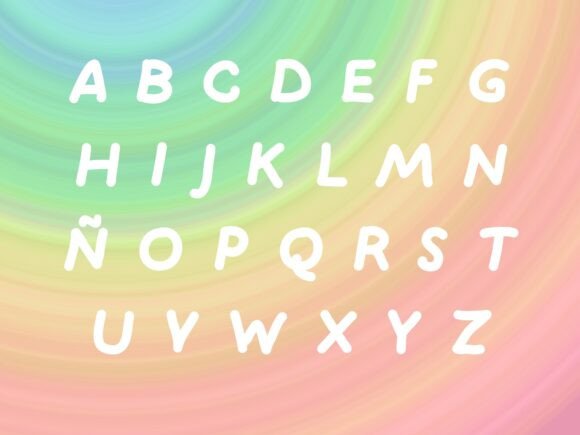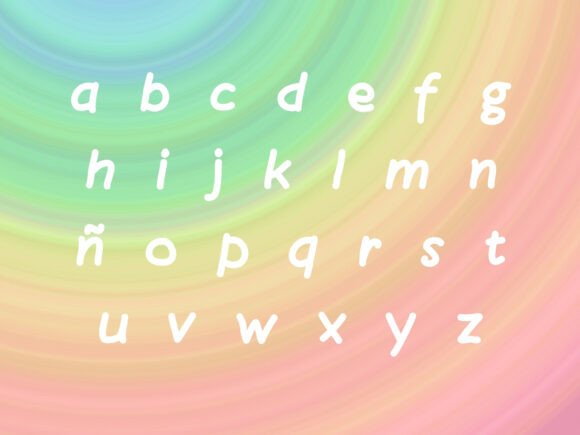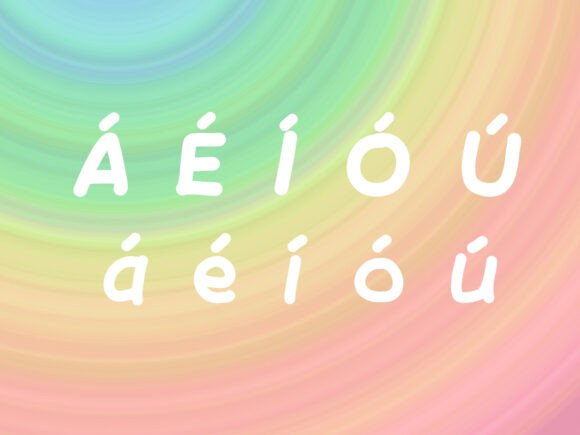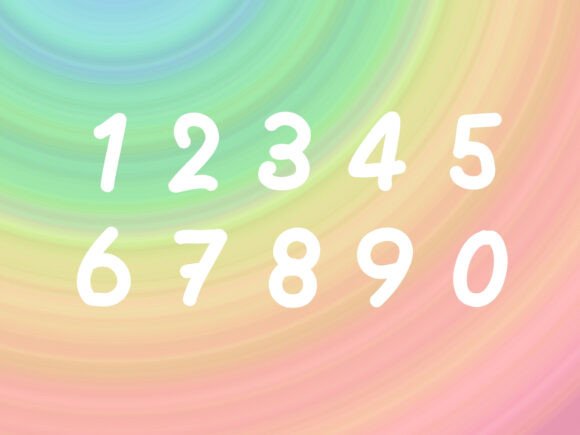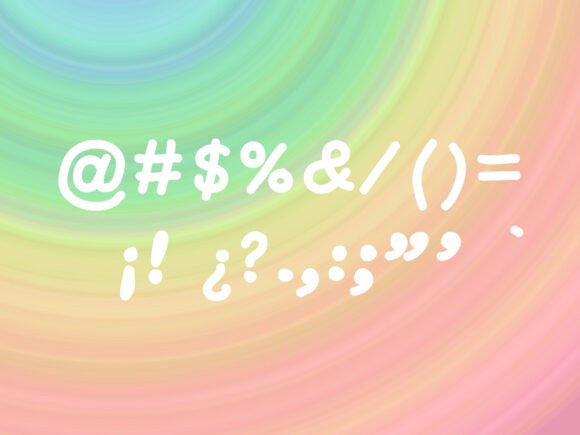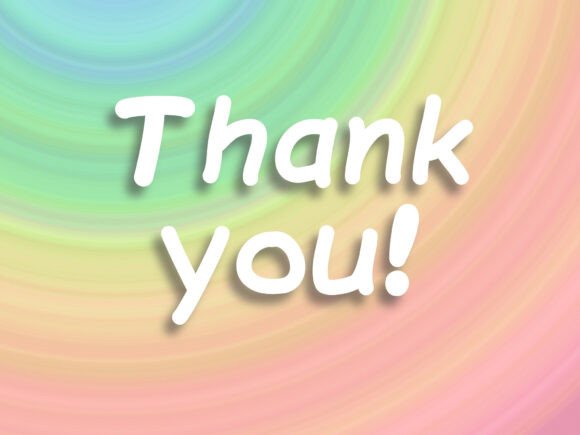
Introducing Erika Font: The Perfect Blend of Boldness and Clarity
Are you looking for a font that can help you make a statement with your creative projects? Look no further than Erika, a delightfully bold and wonderfully clear handwritten font that’s designed to be noticed. With its unique blend of friendly, approachable feel and strong, confident letterforms, Erika is the perfect choice for designers and crafters who want to add a touch of personality to their work.
The Characteristics of Erika Font
Erika font combines the best of both worlds – a friendly, approachable feel and strong, confident letterforms. This makes it incredibly versatile for a wide range of creative projects, from branding and advertising to packaging and digital media. The clean, easy-to-read style of Erika ensures that your message always shines through, making it perfect for use in headlines, titles, and body text.
What Makes Erika Font Stand Out?
So, what sets Erika apart from other fonts? Here are just a few of its standout features:
- Bold and Confident: Erika’s bold letterforms make it perfect for use in headlines and titles, where you want to grab the reader’s attention.
- Clean and Easy to Read: Despite its boldness, Erika is incredibly clear and easy to read, making it perfect for use in body text and other applications where readability is key.
- Friendly and Approachable: Erika’s friendly, approachable feel makes it perfect for use in projects where you want to connect with your audience on a personal level.
- Versatile: Erika is incredibly versatile, making it perfect for use in a wide range of creative projects, from digital media to print materials.
How to Use Erika Font in Your Creative Projects
Erika font is perfect for use in a wide range of creative projects, including:
- Branding and Advertising: Use Erika to create bold, eye-catching headlines and titles that grab the reader’s attention.
- Packaging: Erika is perfect for use in packaging design, where you want to make a statement and stand out on store shelves.
- Digital Media: Erika is perfect for use in digital media, including social media graphics, blog posts, and website headers.
- Crafting and DIY Projects: Erika is also perfect for use in crafting and DIY projects, such as handmade cards, invitations, and scrapbooking.
Tips for Getting the Most Out of Erika Font
Here are a few tips for getting the most out of Erika font:
- Use it Boldly: Erika is a bold font, so don’t be afraid to use it in bold and creative ways.
- Experiment with Colors: Erika looks great in a wide range of colors, so don’t be afraid to experiment and find the perfect color for your project.
- Pair it with Other Fonts: Erika pairs well with a wide range of other fonts, so don’t be afraid to get creative and try out different combinations.
Erika font is a powerful tool for designers and crafters who want to make a statement with their creative projects. With its unique blend of boldness and clarity, Erika is perfect for use in a wide range of applications, from branding and advertising to packaging and digital media. Whether you’re looking to create a bold headline or a beautiful piece of handmade art, Erika is the perfect choice.
Get Ready to Make a Statement with Erika Font